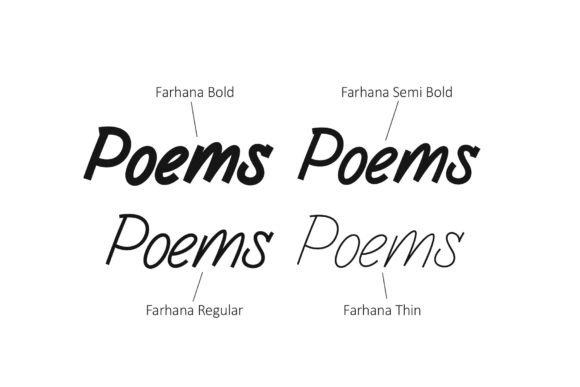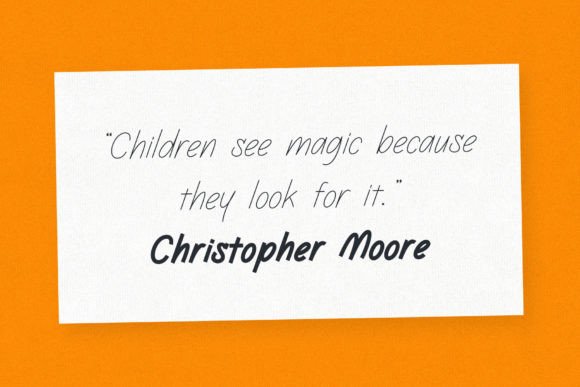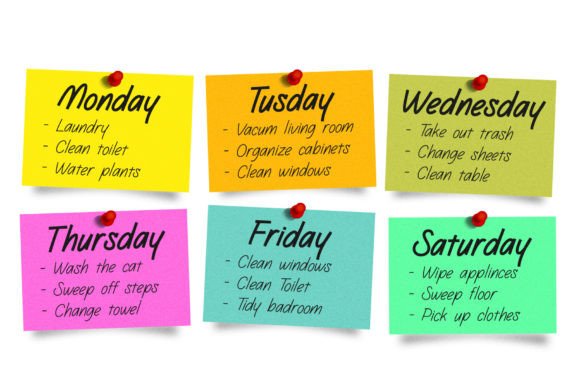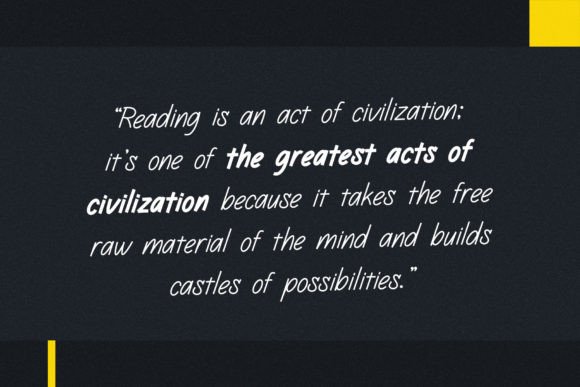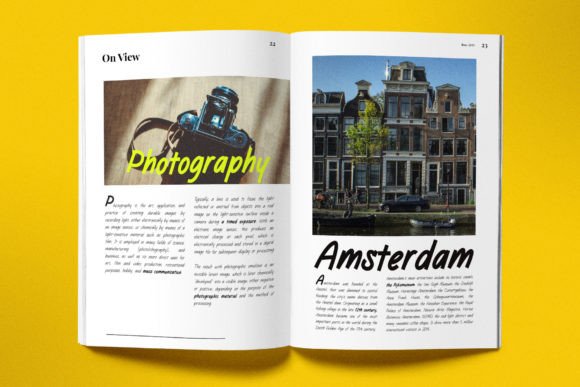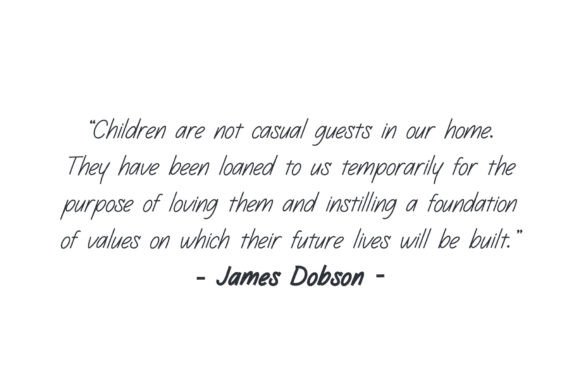
Introducing Farhana Font: A Handwritten Typeface with a Personal Touch
Are you tired of using the same old fonts in your designs? Look no further than Farhana Font, a handwritten typeface that adds a touch of personality to any project. Farhana is a unique and versatile font that is perfect for designers and crafters looking to add a humanist touch to their work.
What Makes Farhana Font Special?
Farhana Font is a funny, dynamic, and easy-going typeface that is sure to capture the attention of your audience. Its handwritten style gives it a personal and approachable feel, making it perfect for a wide range of applications, from quotes and novels to posters and social media posts.
Key Features of Farhana Font
• Handwritten style: Farhana Font has a unique, handwritten style that sets it apart from other fonts.
• Dynamic and playful: The font has a dynamic and playful feel, making it perfect for designs that require a bit of personality.
• Versatile: The font is versatile and can be used in a variety of applications, from print to digital media.
Use Farhana Font in Your Designs
Farhana Font works great in any design project, including:
• Quotes: Add a personal touch to your quotes with Farhana Font.
• Novels and books: Use Farhana Font to add a unique touch to your novel or book.
• Magazines: Farhana Font is perfect for magazine designs, adding a playful and dynamic feel to your content.
• Posters: Create eye-catching posters with Farhana Font.
• Print designs: Use Farhana Font in a wide range of print designs, from brochures to business cards.
• Social media posts: Add a personal touch to your social media posts with Farhana Font.
• E-books: Use Farhana Font to create engaging and interactive e-books.
Why Designers and Crafters Love Farhana Font
Designers and crafters love Farhana Font for its unique and versatile style. The font is easy to use and works seamlessly with a wide range of design software. Its handwritten style gives it a personal and approachable feel, making it perfect for designs that require a bit of personality.
Tips for Using Farhana Font
• Experiment with different sizes: Farhana Font works well in a variety of sizes, from small to large.
• Pair with other fonts: Pair Farhana Font with other fonts to create a unique and visually appealing design.
• Use in combination with images: Use Farhana Font in combination with images to create a visually appealing design.
Farhana Font is a unique and versatile handwritten typeface that is perfect for designers and crafters looking to add a personal touch to their designs. Its dynamic and playful style makes it perfect for a wide range of applications, from quotes and novels to posters and social media posts. With its ease of use and versatility, Farhana Font is sure to become a favorite in your design toolkit.